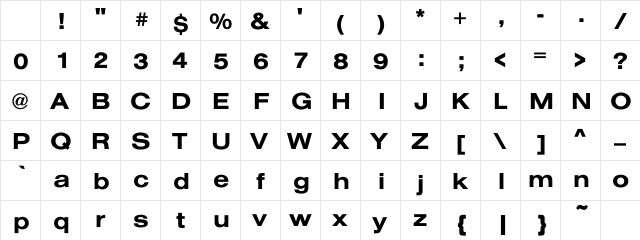
Complete Addington Ext Medium Regular glyph index. Displaying only characters natively supported by Addington Ext Medium Regular font.
Addington Ext Medium is a composed and adaptable typeface that performs quietly and consistently across a wide range of design contexts.